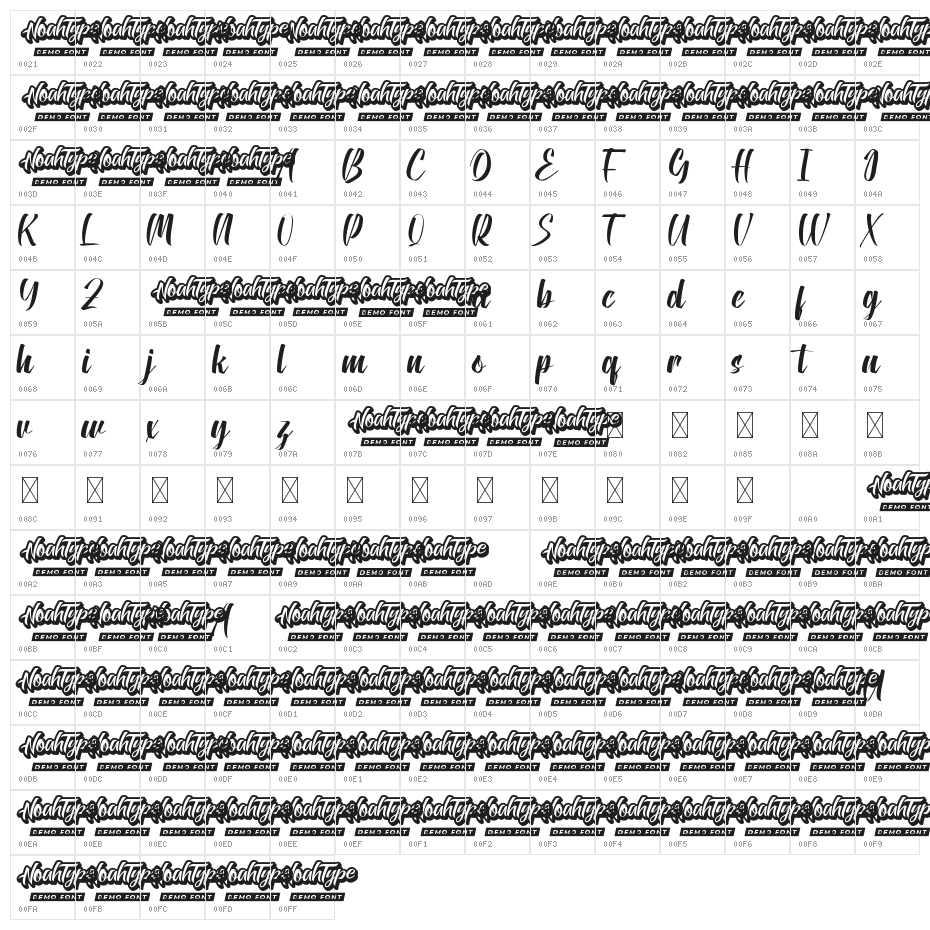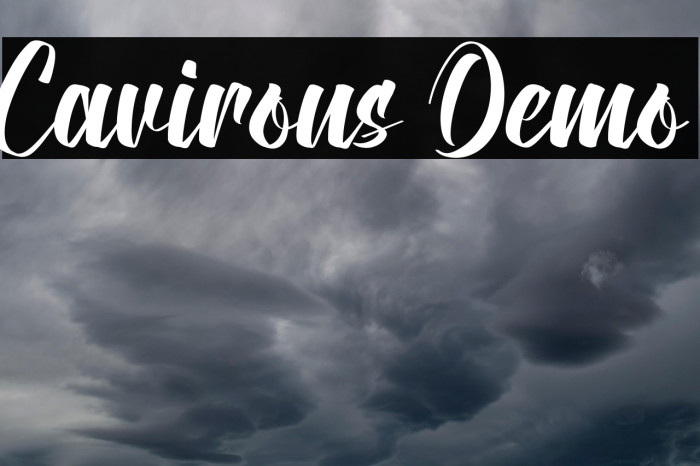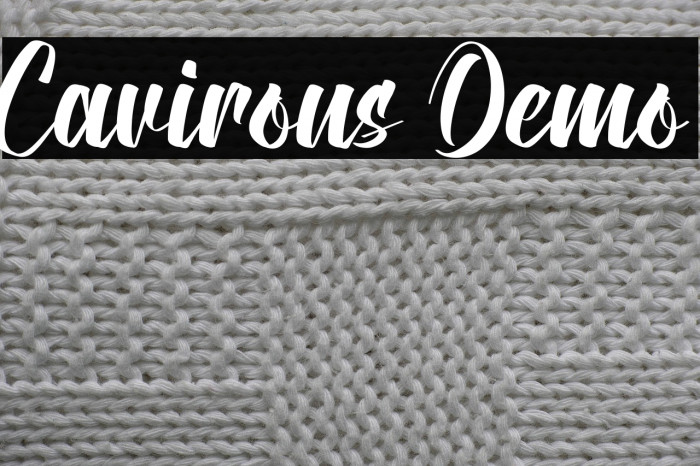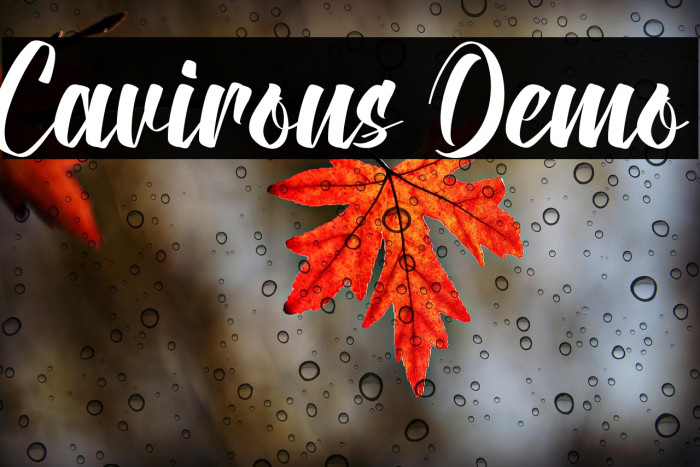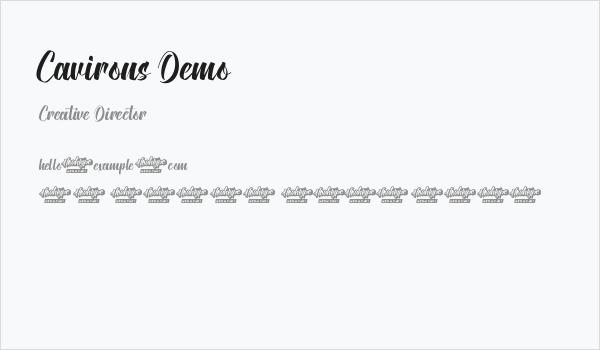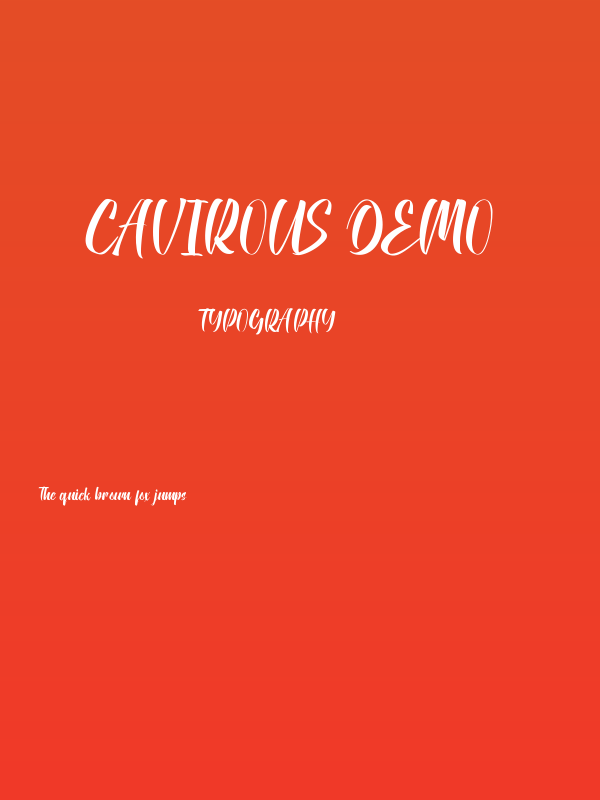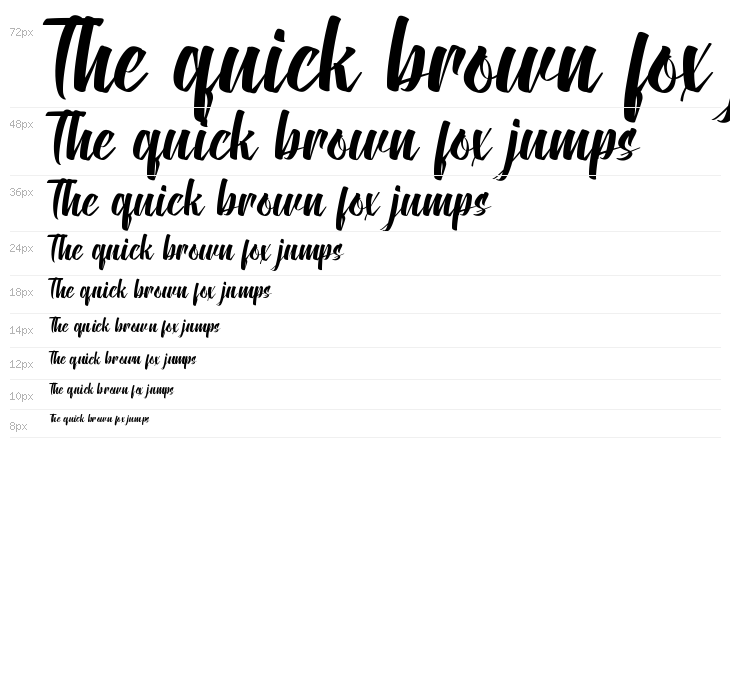
Cavirous Demo Font
Cavirous Demo Description
This font features a bold and expressive script style with a modern flair. The characters are fluid and dynamic, showcasing a sense of movement and elegance. The uppercase letters are particularly striking, with sweeping curves and dramatic flourishes that add a touch of sophistication. The lowercase letters maintain a consistent flow, complementing the uppercase with their smooth and connected strokes. The overall design is both artistic and legible, making it suitable for a variety of creative applications. The font's unique style is enhanced by its high contrast in stroke thickness, which adds depth and visual interest.
| Proposed Projects | Ideal for branding, invitations, posters, and creative design projects. |